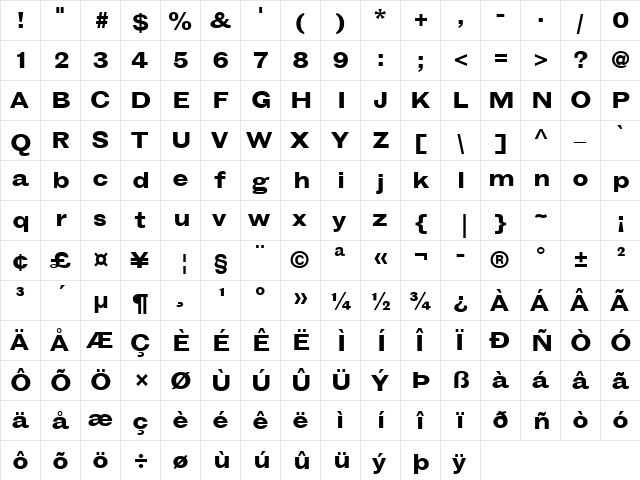
Grotesque Display MT BoldExt Regular
Design Context for Grotesque Display MT BoldExt Typeface
Grotesque Display MT BoldExt is built around its visual character rather than neutral utility — its distinctive forms are designed to make an impression at display sizes. Its bold stroke weight gives it real presence on the page.
Font Pairing: Pair with a clean neutral sans-serif for body copy to let Grotesque Display MT BoldExt's character lead without overwhelming the composition.
Pro Tip: Treat Grotesque Display MT BoldExt as the centrepiece of your typographic hierarchy. One strong heading set in a decorative face can carry an entire layout.